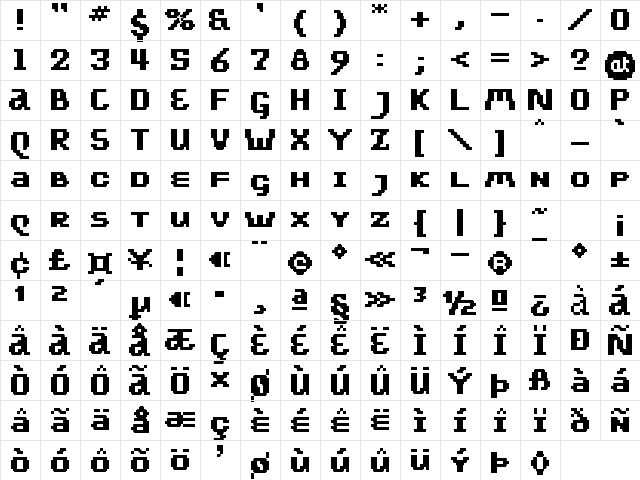
UF PT Unicraze Bold Regular
| Foundry | Ultrafonts |
| Designer | Hugo Perez of PixieType |
Design Context for UF PT Unicraze Bold Typeface
UF PT Unicraze Bold is a composed and adaptable typeface that performs quietly and consistently across a wide range of design contexts. Its bold stroke weight gives it real presence on the page.